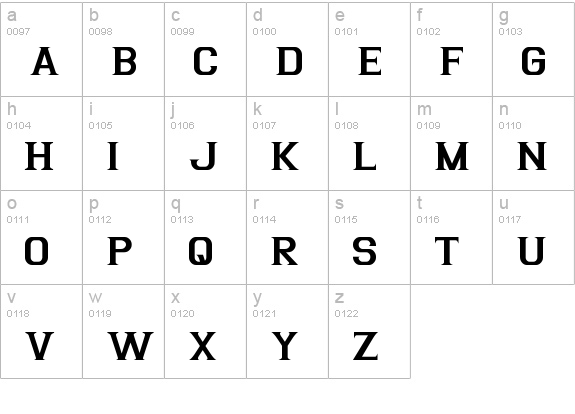
Introducing Argentina, a visually striking and versatile font that is sure to make a statement in any design project. With its elegant and modern letterforms, Argentina is perfect for headlines, logos, branding, and more. What sets Argentina apart is not only its impeccable design, but also the fact that it is available for free. That's right, you heard it correctly! This incredible font can be freely downloaded at FontsMarket.com, making it accessible to designers, artists, and creatives of all kinds. Argentina offers a wide range of weights and styles, allowing you to experiment and create unique and captivating typographic compositions. Whether you're going for a bold and impactful look or a more subtle and refined aesthetic, Argentina has got you covered. This font is expertly crafted to ensure legibility and readability, even at smaller sizes. Its clean lines and balanced proportions make it a joy to work with, ensuring that your message is delivered clearly and effectively. With Argentina, you have the freedom to unleash your creativity and bring your designs to life. Whether you're working on a personal project or a client's brief, this font has the versatility and flexibility to adapt to any style or concept. So why wait? Don't miss out on the opportunity to enhance your designs with the beauty and sophistication of Argentina. Download this incredible font for free at FontsMarket.com and let your creativity soar to new heights.